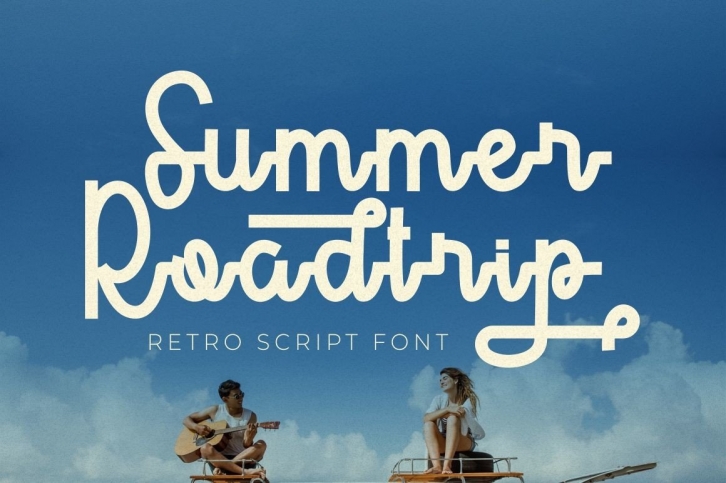
Summer Roadtrip is a fun, retro handwritten script font. This font is neatly crafted and highly detailed. Whatever the topic, this font will be a wonderful asset to your font library, as it has the potential to enhance any creation.